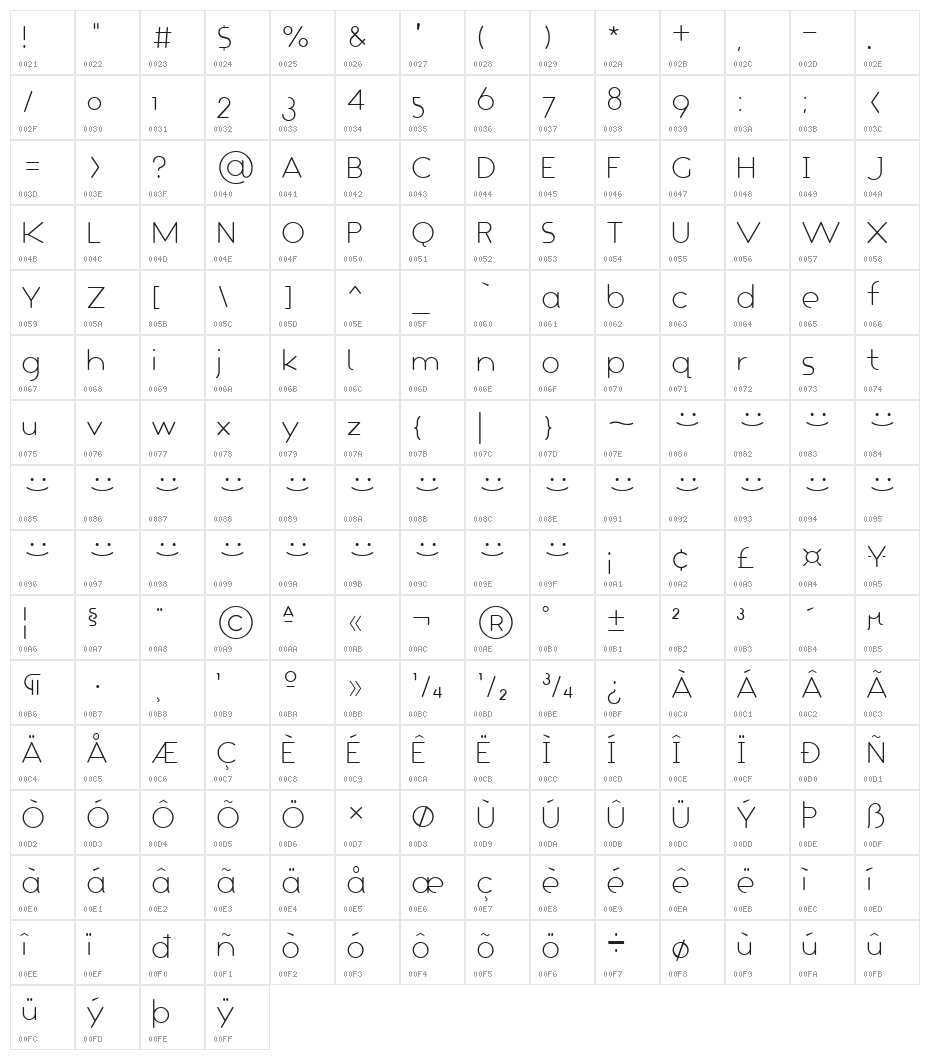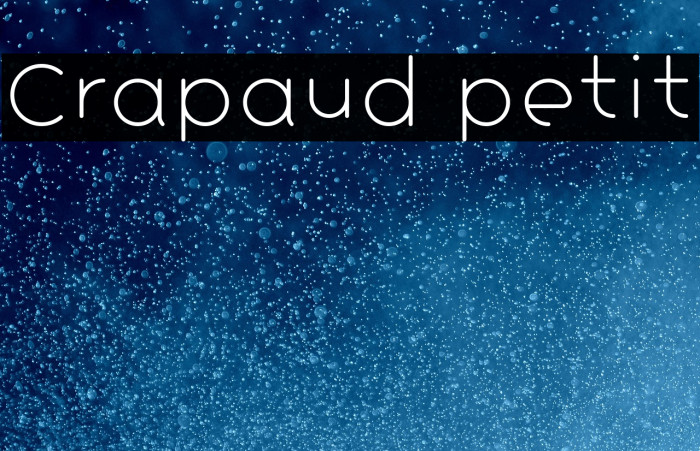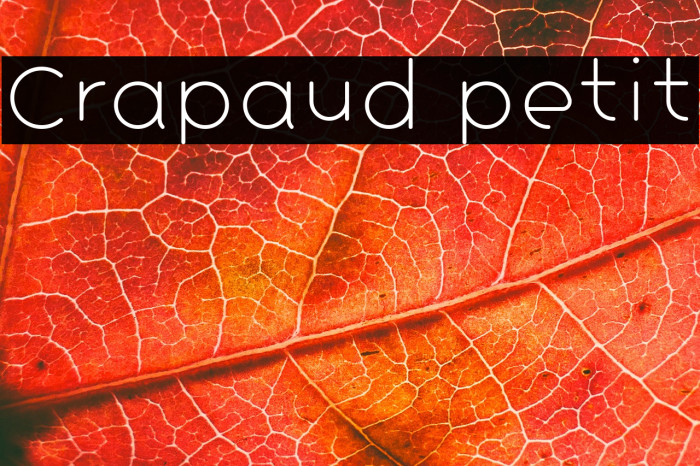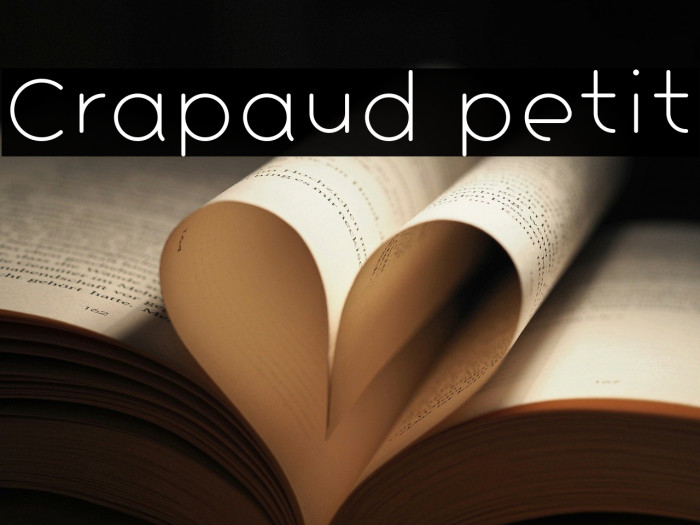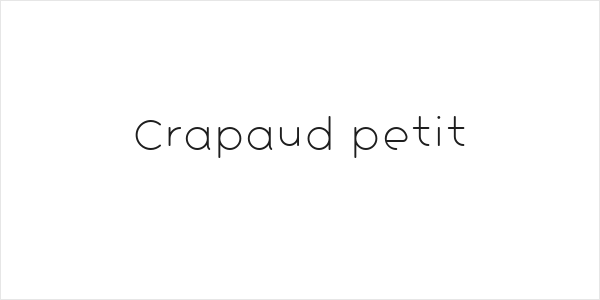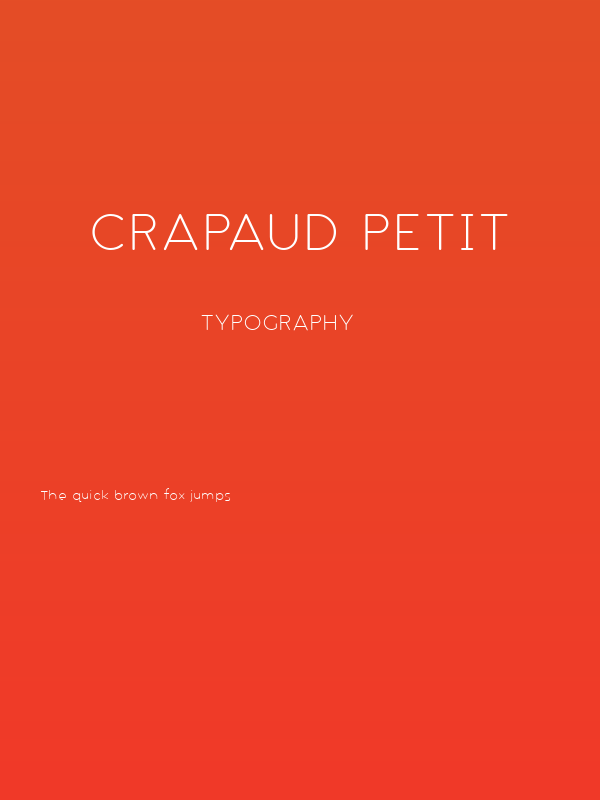
Crapaud petit Font
Crapaud petit Description
This font features a clean and modern sans-serif style with a geometric structure. The characters are evenly spaced, providing a balanced and harmonious appearance. The uppercase letters are slightly taller than the lowercase, maintaining a consistent line weight throughout. The numerals are clear and legible, matching the overall aesthetic of the alphabet. Special characters are designed with simplicity in mind, complementing the font's minimalistic approach. This font's clarity and straightforward design make it versatile for various applications.